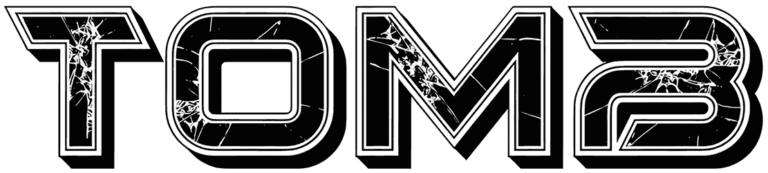
Oklahoma 2021 Font
Do you want a bold and old-style mood for your coming design? Recommend you try Oklahoma 2021. This old school font, even with no lowercase backing, can show your design with a brave and salient figure. Oklahoma 2021 can be matched with many projects and topics, such as posters, banners, covers, and more.